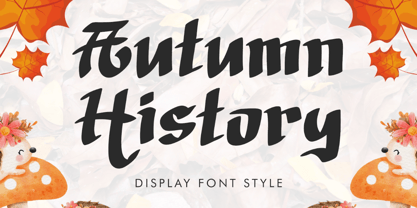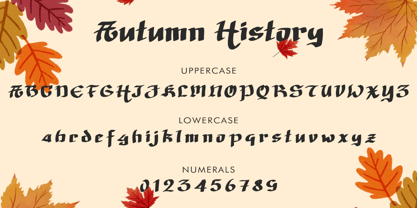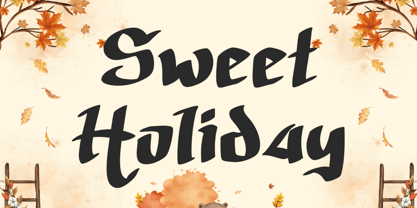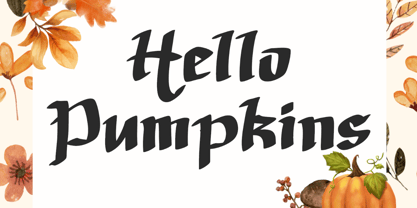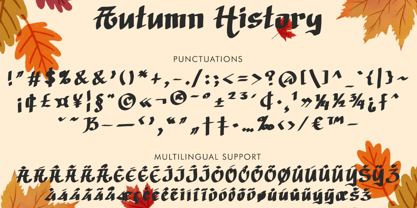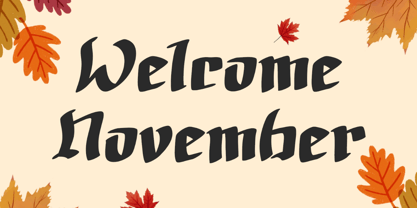
Autumn History
by Yoga Letter
The Autumn History Font Family was designed by Isroni Yoga Prasetya and published by Yoga Letter. Autumn History contains 1 styles. More about this family
"Autumn History" is a cute and unique display font. It features uppercase and lowercase letters, numerals, punctuation, and multilingual support. It's perfect for Christmas, Halloween, autumn, print, banners, posters, branding, stickers, gifts, invitations, winter, vacation, holiday, spring, summer, weddings, photography, mockups, t-shirts, and more.
Designers: Isroni Yoga Prasetya
Foundry: Yoga Letter